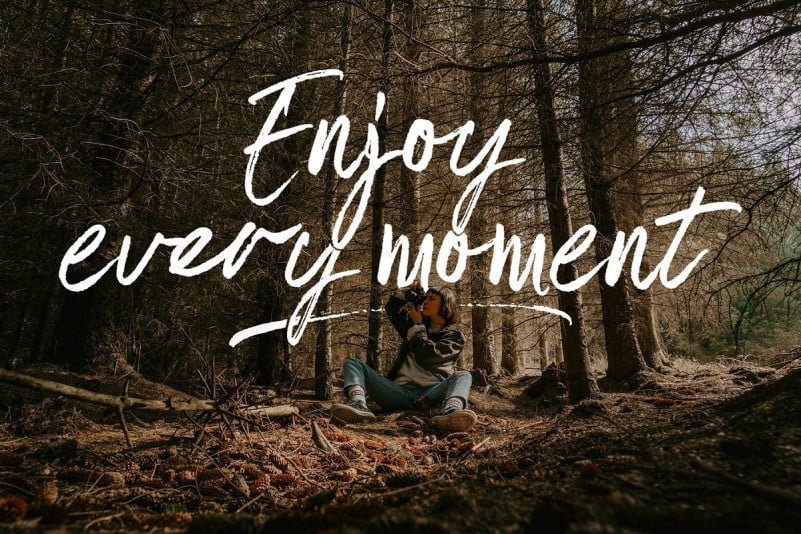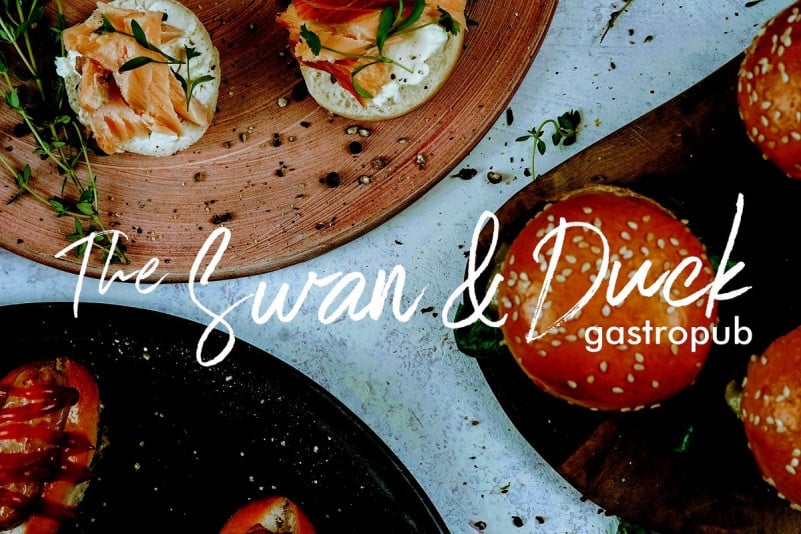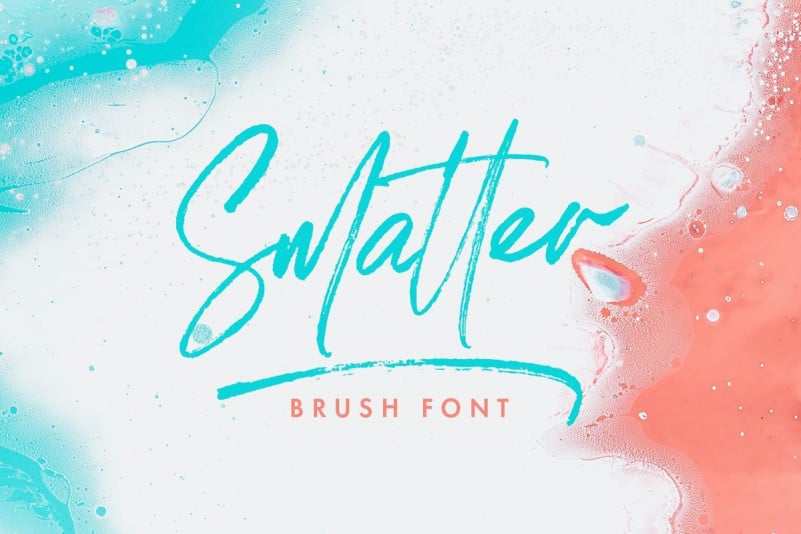
Smatter Brush Font is a stylish brush signature typeface with ending stylistic set that make amazing combination. Made from font designer named Surplus Type Co. Smatter Brush Font is a hand crafted brush script that is full of bonus features including a big selection of ligatures, alternates and swashes, created so you can easily create unique typographic designs. Perfect for signature style branding, quotes, social media, advertising, stationery, apparel and much more.